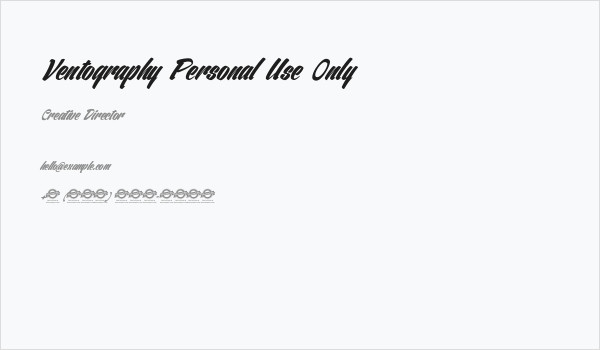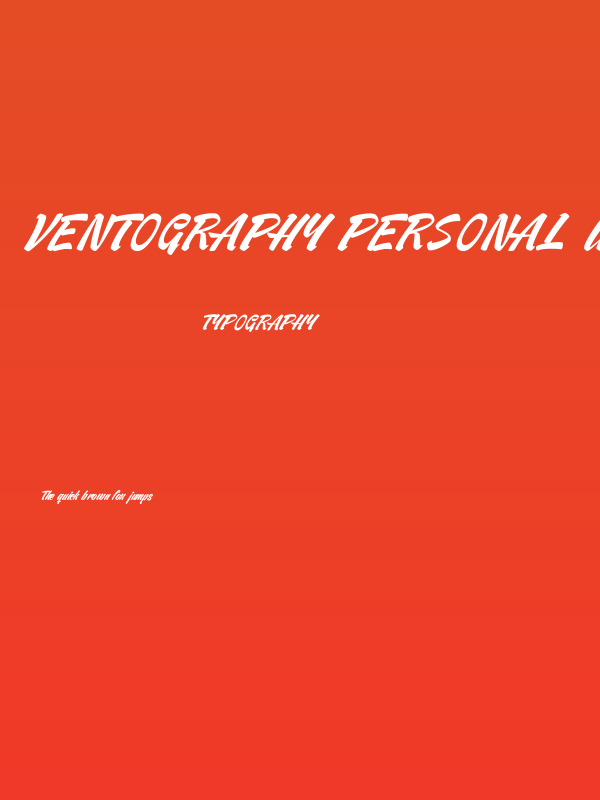
Ventography Personal Use Only Font
Ventography Personal Use Only Description
This font features a bold and dynamic script style, characterized by its fluid and connected letterforms. The strokes are thick and expressive, giving a sense of movement and energy. The uppercase letters are particularly striking, with a slight slant that adds to the overall dynamic feel. The lowercase letters maintain a consistent flow, enhancing readability while retaining a stylish flair. The numerals and special characters are designed to match the boldness of the alphabet, ensuring a cohesive look across all text. This font is ideal for making a strong visual impact.
Proposed ProjectsIdeal for branding, logos, headlines, posters, and any design requiring a strong, stylish impact.